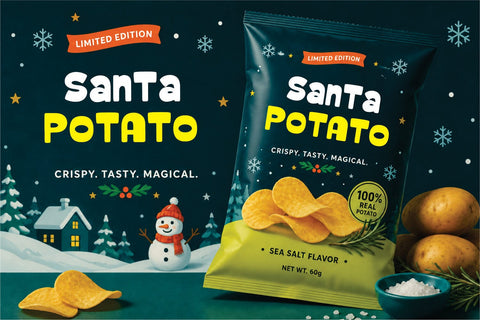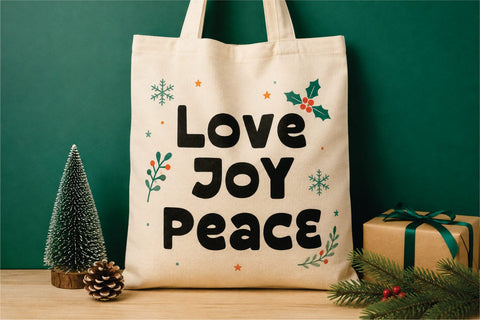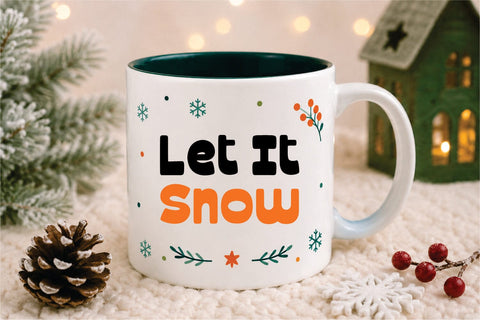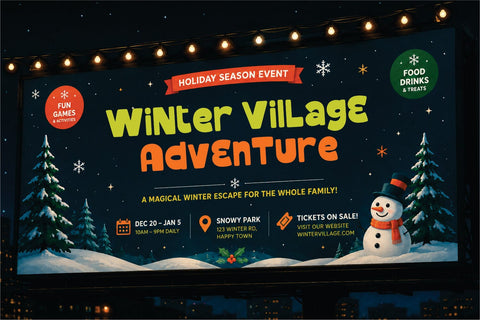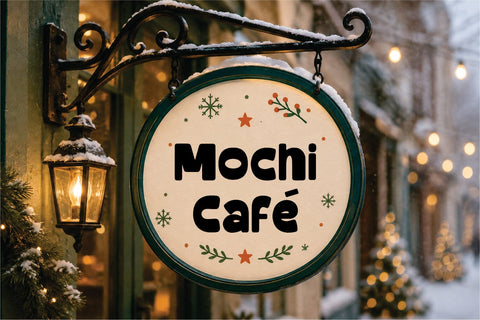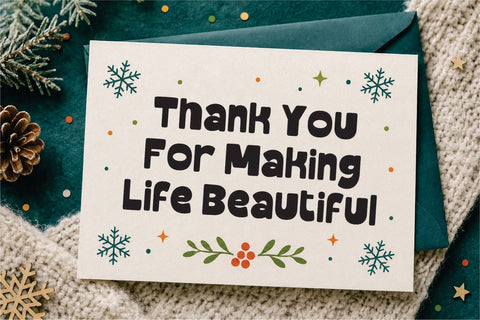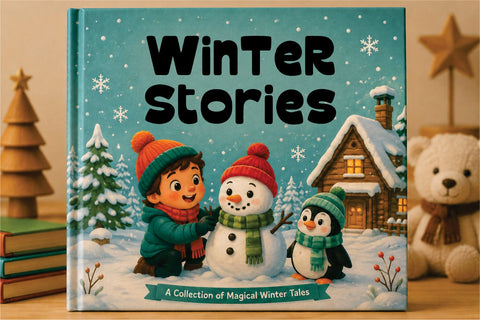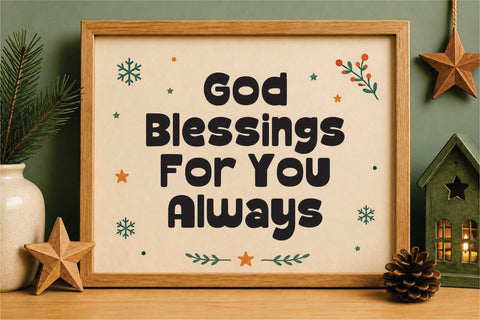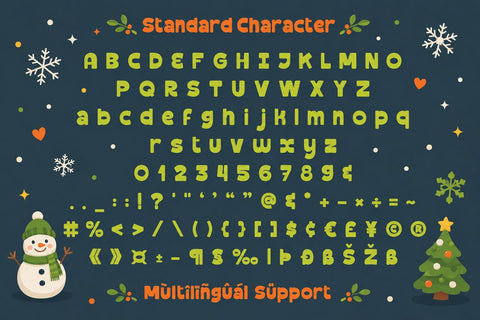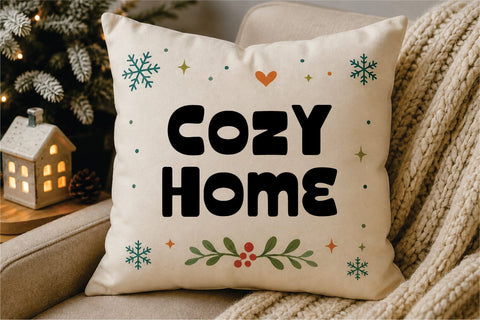
Candy Sprinkle – Christmas Font
Candy Sprinkle – Cute Display Font | Playful & Unique Typeface
Candy Sprinkle is a cute and unique display font designed to bring a fun, cheerful, and playful personality to your creative projects. Featuring charming letterforms with a sweet and distinctive appearance, this font is perfect for designs that need a joyful, friendly, and eye-catching typographic style.
With its playful shapes and adorable character, Candy Sprinkle creates a fun visual impression while keeping the lettering clear and easy to recognize. The unique display style makes it especially suitable for headlines, titles, logos, packaging, and other designs where typography becomes an important part of the visual identity.
Inspired by colorful candy, sweet treats, sprinkles, playful illustrations, and cheerful moments, Candy Sprinkle has a delightful personality that instantly adds a touch of fun to any composition. Its quirky letterforms give the font a memorable appearance that works beautifully for both children’s designs and trendy playful graphics.
Candy Sprinkle performs beautifully across a variety of creative projects, from branding and packaging to posters, invitations, social media graphics, stickers, and merchandise. Its cute and expressive style makes it a versatile choice for designers looking to create typography that feels approachable, youthful, and full of personality.
With its distinctive character and playful display style, Candy Sprinkle is perfect for projects that need something different from traditional fonts. Whether you’re designing a sweet product label, children’s artwork, a fun logo, or colorful promotional graphics, this unique display font adds charm and personality to every word.
Key Features
Cute Display Font
A charming display typeface designed with playful and adorable letterforms.
Unique & Playful Style
Distinctive character shapes create a memorable and cheerful visual identity.
Sweet & Fun Typography
Inspired by candy, sprinkles, sweets, and colorful playful aesthetics.
Eye-Catching Headlines
Perfect for titles, headlines, logos, and large display typography.
Versatile Creative Font
Works beautifully across branding, packaging, crafts, merchandise, and digital designs.
Multilingual Support
Extended glyphs provide flexibility for a variety of international design projects.
Perfect For
Candy Sprinkle cute display font works beautifully for:
• Kids & Children’s Designs
• Candy & Sweet Branding
• Food & Beverage Packaging
• Bakery & Dessert Designs
• Cute Logo Design
• Children’s Books & Illustrations
• Birthday Invitations
• Party Decorations
• Stickers & Labels
• T-Shirt & Merchandise Design
• Social Media Graphics
• Posters & Advertising
• Packaging & Product Labels
• Cricut & DIY Crafts
• Fun & Playful Branding
Why Choose Candy Sprinkle?
Candy Sprinkle is a delightful cute display font created for designers who want typography with personality. Its playful proportions, unique shapes, and sweet visual character make it an excellent choice for designs that need to feel cheerful, friendly, youthful, and fun.
Whether you’re creating candy packaging, children’s designs, birthday invitations, cute logos, stickers, merchandise, posters, or social media graphics, Candy Sprinkle adds a charming and unforgettable touch to your typography.